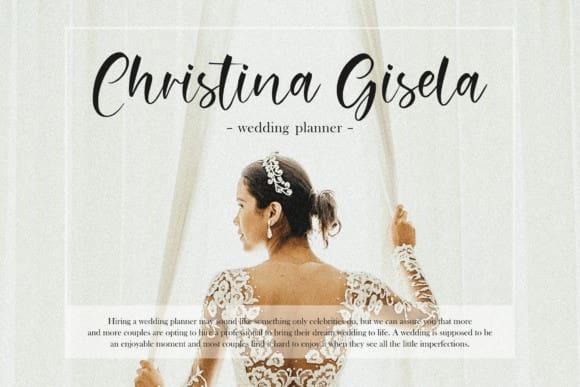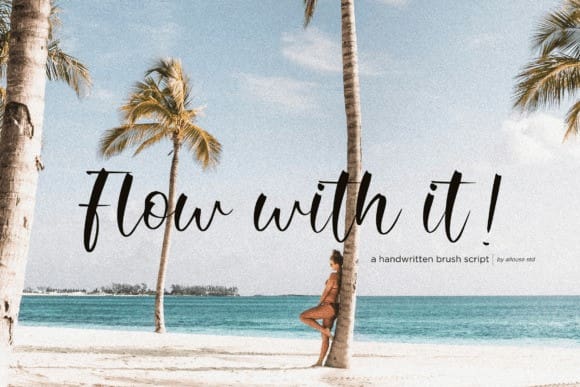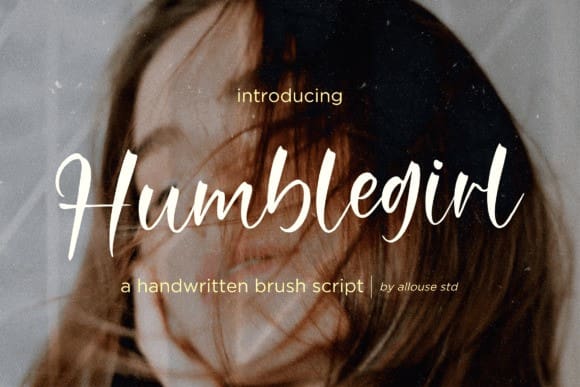
Humblegirl Script Font
Humblegirl Script Font – A Handwritten Brush Script Font. Perfect for product packaging, branding project, megazine, social media, wedding, or just used to express words above the background.